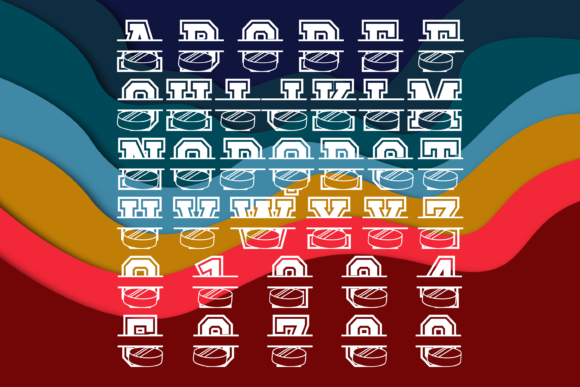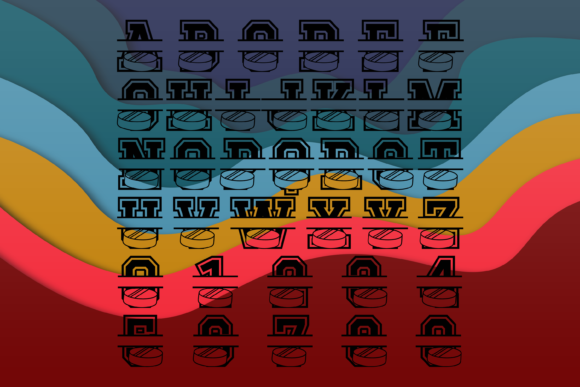
Introduction to Hockey Game Font
Remember that moment when you’re brainstorming ideas for a creative project, and the perfect font pops into your mind, elevating the entire design? For many designers, that moment is often linked to the Hockey Game Font. This incredible decorative font has become a go-to choice for those seeking a unique and eye-catching design resource.
Whether you’re working on a DIY craft, a custom design, or any project that requires a touch of elegance, the Hockey Game Font is sure to impress. Its high quality and versatility make it an invaluable asset for designers, allowing them to create stunning visuals with ease. And the best part? This fantastic font is available for a free download, perfect for designers on a budget or those who prefer a transparent background for their creative projects.
With its distinct style and charm, the Hockey Game Font is a must-have for any design enthusiast. In this article, we’ll delve into the world of this amazing font, exploring its features, uses, and why it’s a valuable addition to any designer’s toolkit.
Key Features of Hockey Game Font
- High-quality design: This font is perfect for any hockey-themed project, offering a unique and creative way to express your passion for the sport.
- Transparent background: The transparent background of this font makes it easy to use on any design, allowing the background to shine through and add depth to your project.
- Perfect for sports projects: This font is specifically designed for hockey-themed projects, making it an ideal choice for designers working on sports-related creative projects.
- High-resolution design: The font is available in high resolution (300 DPI), ensuring that it looks crisp and clear on any design, regardless of the size or resolution.
- Design resource: Hockey Game Font is a valuable design resource for any creative project, offering a unique and creative way to express your passion for hockey.
Honest Review: Hockey Game Font
I recently had the chance to use the Hockey Game Font in a creative project and I must say, it’s a great design resource. The font is free to download, which is always a plus in my book.
What works well is the font’s high quality and bold aesthetic, making it perfect for sports-themed designs. The transparent background option is also a nice touch, allowing for easy customization and integration into any design. ✨ The font’s clean and modern design makes it easy to read and use in a variety of contexts.
- Bold and modern aesthetic
However, there are some limitations to consider. ⚠️ The font may not be suitable for all types of projects, particularly those that require a more subtle or elegant design. Additionally, some users may find the font too bold or overwhelming.
Overall, I’m impressed with the Hockey Game Font and would recommend it to designers looking for a high-quality, sports-themed font. With its free download option and transparent background feature, it’s a great addition to any design resource collection.
Hockey Game Font
The Hockey Game Font is a high-quality design resource ideal for various creative projects. To get the most out of this font, follow these steps:
Using the Hockey Game Font
Transparency and Customization
The Hockey Game Font allows for a transparent background, making it easy to customize and use in various design projects. Use this font to add a touch of sports theme to your creative project.
Use the Hockey Game Font in combination with other design elements to create a visually appealing design. Experiment with different font sizes and colors to achieve the desired effect.
The Hockey Game Font is ideal for sports-themed designs, such as posters, flyers, and social media graphics. It can also be used in non-sports related designs, such as event invitations and promotional materials.
What is the recommended font size for using the Hockey Game Font?
The recommended font size for the Hockey Game Font varies depending on the design application and the desired visual impact. For most designs, a font size between 12pt and 48pt is suitable. However, feel free to experiment with different font sizes to achieve the desired look and feel for your high-quality design project.